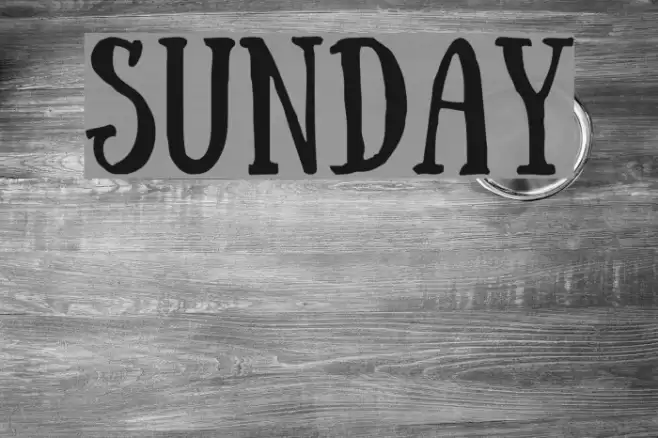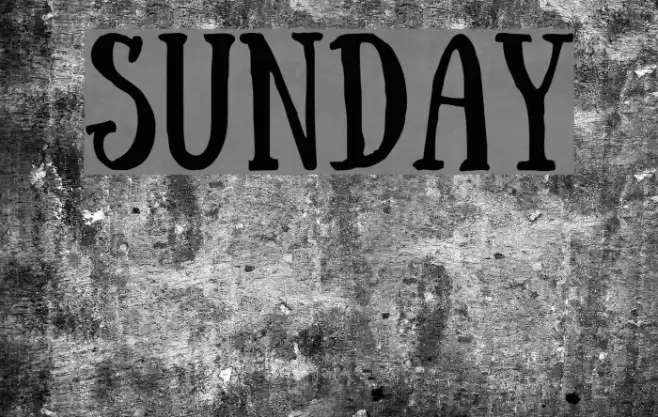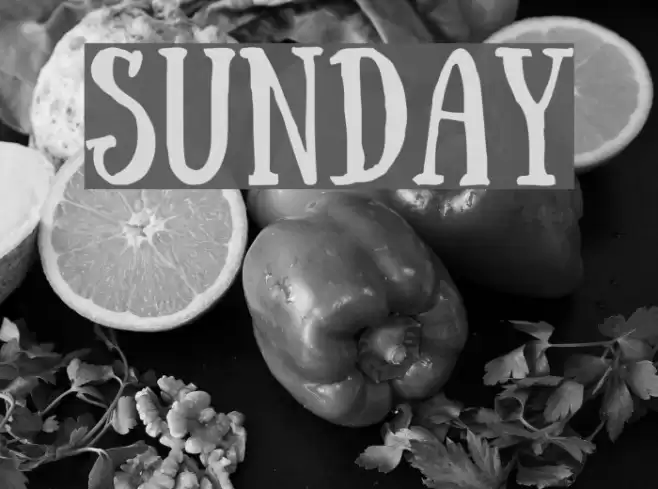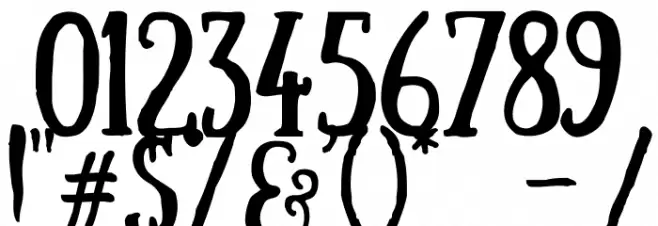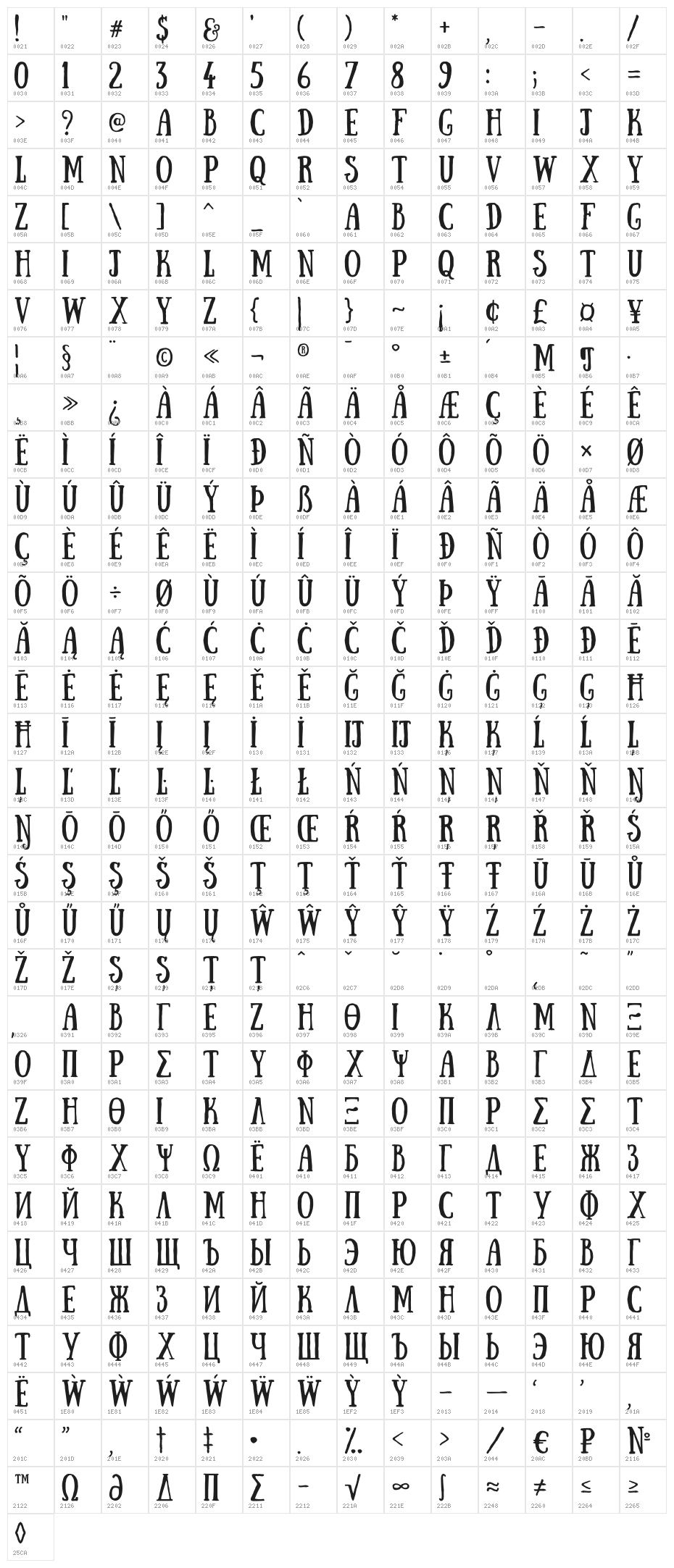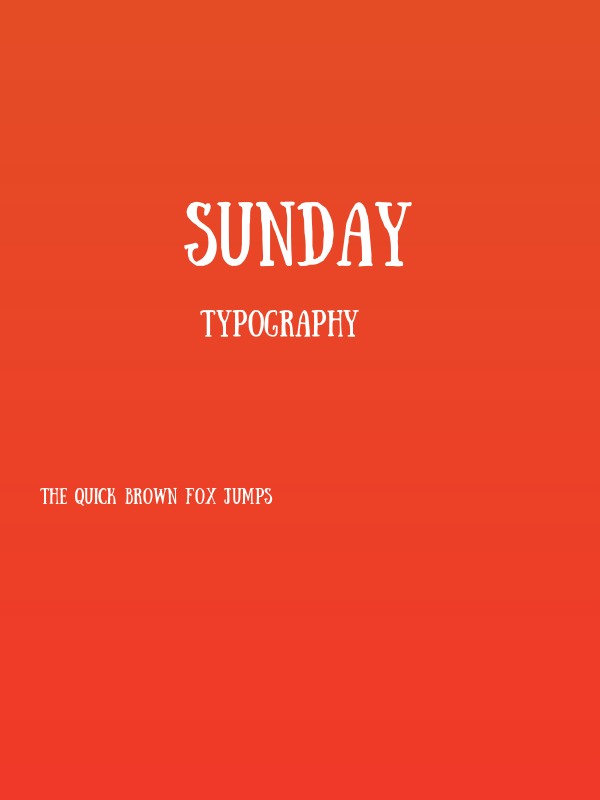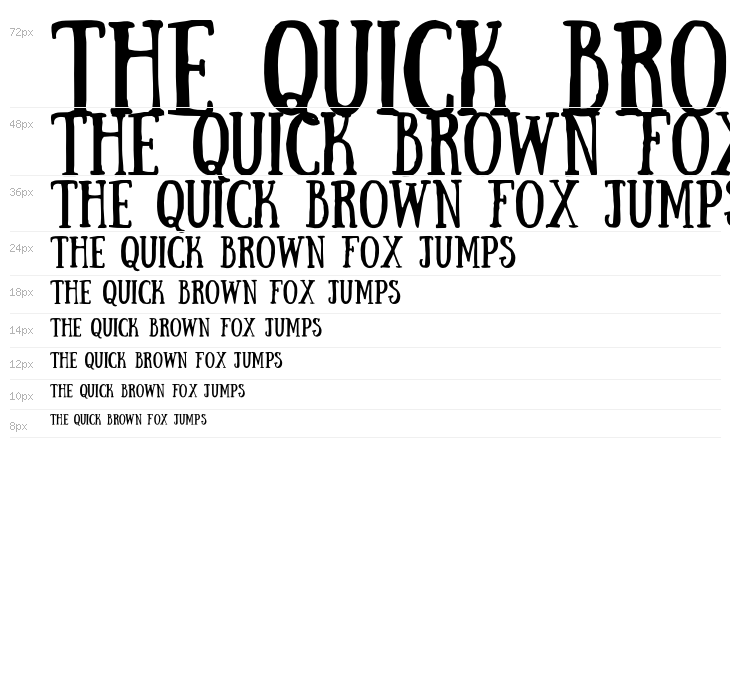
Sunday Font
Sunday Description
This font features a playful and whimsical design with a hand-drawn aesthetic. The characters are bold and slightly irregular, giving them a unique and artistic flair. The uppercase letters are tall and narrow, while the lowercase letters maintain a consistent style, adding to the font's charm. The numbers and special characters follow the same playful design, making the font versatile for various creative projects. The strokes are thick with a medium contrast, enhancing readability while maintaining a decorative appeal.
A playful, hand-drawn font with bold, irregular strokes and medium contrast from Handwritten fonts.
- Proposed Projects: Ideal for children's books, greeting cards, playful branding, and artistic posters.
- Overall Style: Whimsical, Artistic